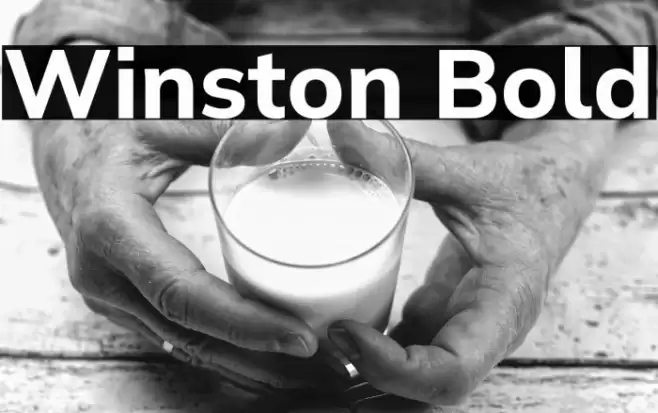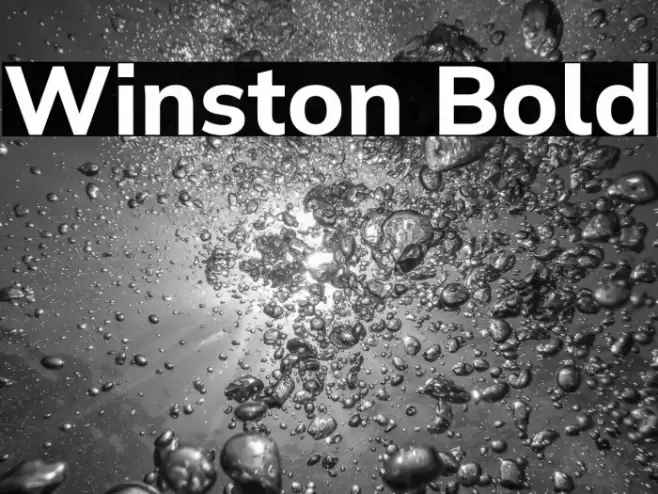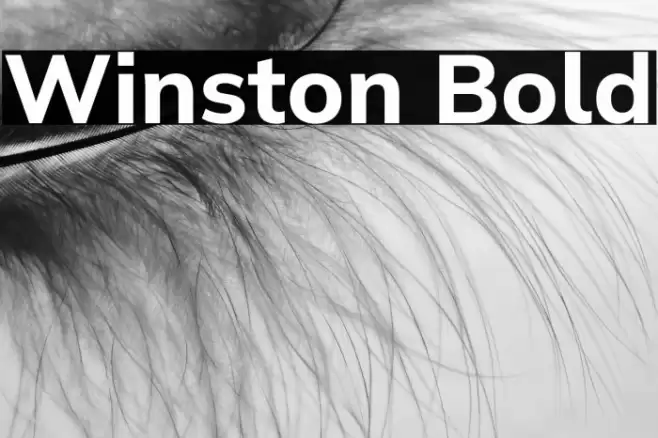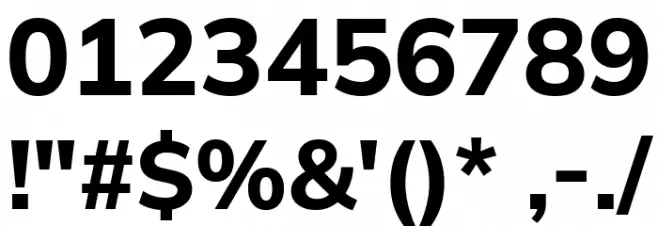
Winston Bold Font
Winston Bold Description
This font exhibits a strong, bold presence with clean lines and a modern aesthetic. The uppercase and lowercase letters are well-proportioned, providing a sense of balance and readability. The numerals are clear and distinct, making them suitable for various applications. The special characters are designed to complement the overall style, ensuring consistency across different uses. The font's bold weight and normal width make it versatile for both digital and print media, offering a professional and polished look.
A bold, modern font with clean lines and excellent readability from Sans Serif fonts.
- Proposed Projects: Ideal for branding, headlines, advertising, and digital media where a strong, modern presence is desired.
- Use Case: Headlines, Logos, Branding